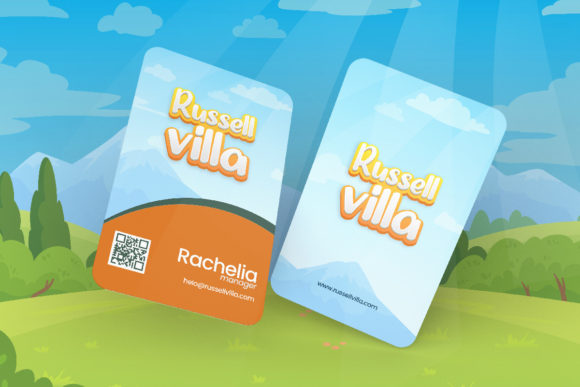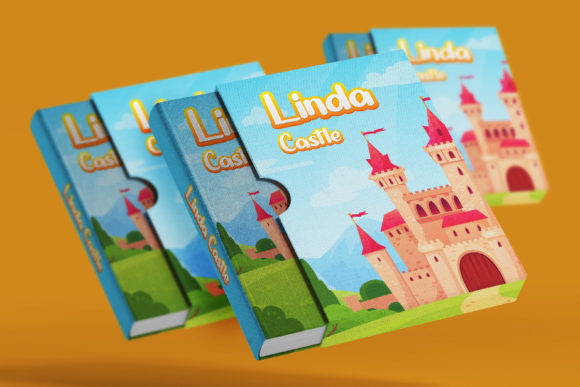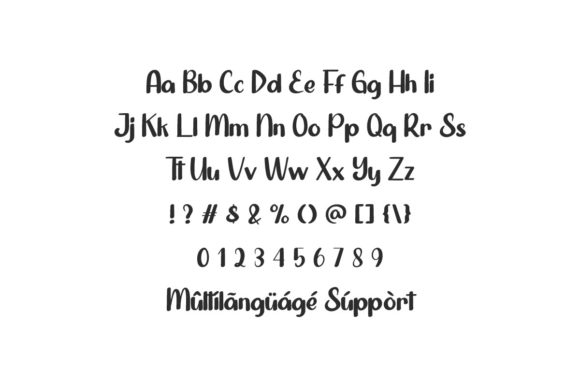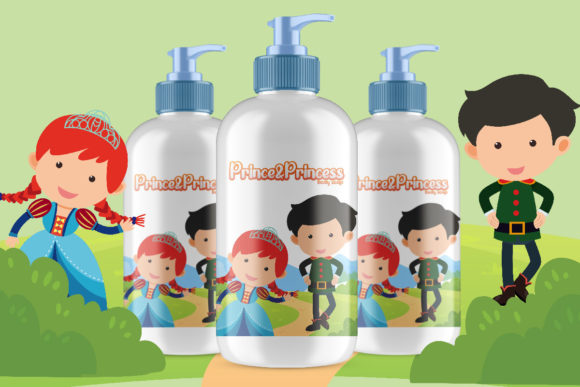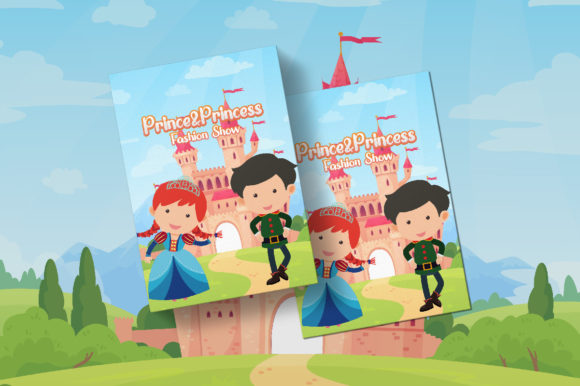
Introduction to Little One Font
Have you ever been scrolling through Instagram, stumbled upon a beautifully crafted design, and immediately thought, “Wow, I wish I could create something like that!”? That’s exactly what happened to me when I first laid eyes on a stunning design featuring the Little One Font. Its unique, trendy aesthetic captivated me, and I knew I had to learn more about this incredible design resource.
As a designer myself, I understand the value of having high-quality fonts that can elevate any creative project. The Little One Font is perfect for designers who want to add a touch of elegance and sophistication to their work. Whether you’re working on a DIY project, creating social media graphics, or designing a wedding invitation, this font is sure to impress.
Not only is the Little One Font a beautiful addition to any design, but it’s also available for free download, making it an accessible resource for designers of all levels. With its transparent background and high-quality design, you can rest assured that your creative project will look professional and polished.
Key Features of Little One Font
- High-quality design resource ideal for creative projects, featuring a unique and playful style.
- Includes a range of characters, including uppercase and lowercase letters, numbers, and special symbols.
- Designed with a clean and modern aesthetic, making it perfect for digital and print projects.
Honest Review: Little One Font
I recently stumbled upon the Little One Font, and I must say it’s been a delightful addition to my design resource collection. This charming font is perfect for creating whimsical and playful elements in any creative project.
Here’s what works well:
- High-quality design that’s crisp and clean, making it ideal for digital use.
- Unique and quirky style that adds a touch of personality to any design.
While the Little One Font is a great resource, there are a few limitations:
- It’s a relatively small font family, so it may not be suitable for projects that require a wide range of styles.
- The font may not be as versatile as some other options, but it’s perfect for specific use cases like children’s books or nursery decor.
Overall, I’m really impressed with the Little One Font. It’s a great addition to my design resource library, and I’ve already used it in a few creative projects. If you’re looking for a unique and playful font, I’d definitely recommend giving it a try.
The Little One Font is a versatile design resource ideal for creative projects that demand a high-quality, elegant touch. With a transparent background, this font is perfect for designing engaging graphics, logos, and text overlays.
To get the most out of the Little One Font, consider the following tips:
- Use it in combination with other high-quality design resources for a cohesive look.
- Experiment with different font sizes and colors to create visually appealing designs.
- Use it for text overlays, logos, and graphics to add an elegant touch to your creative projects.
The Little One Font is ideal for:
- Designing elegant logos and branding materials.
- Creating high-quality graphics and text overlays for social media and marketing campaigns.
- Choose a high-quality image of a baby or a nursery scene.
- Use Little One Font to add text with the baby’s name, a special message, or a quote.
- Adjust the font size, color, and style to match the design of the wall art.